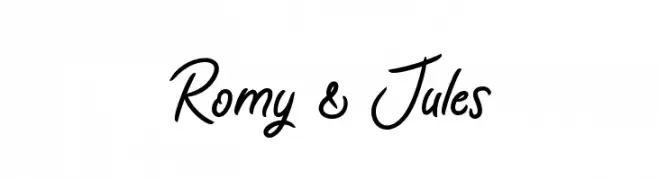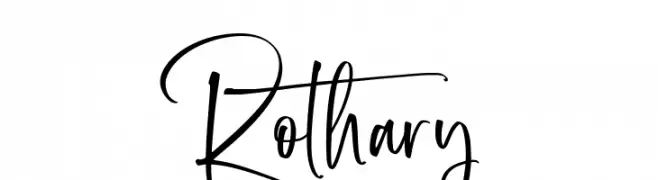
A flowing, elegant handwritten font with artistic curves and loops.
A bold, brush script font with dynamic, fluid strokes and a modern, edgy aesthetic.
A bold, expressive script font with a handwritten style.
A bold, playful script font with a handwritten feel and rounded edges.
A lively, cursive font with elegant, flowing letters and a dynamic style.
A graceful and elegant script font with flowing cursive letters and intricate swashes.
A playful, hand-drawn font with letters in circular shapes, perfect for creative projects.
A modern, flowing cursive font with elegant and smooth letterforms.
A bold, expressive script font with dynamic curves and artistic flair.
A dynamic handwritten font with fluid, expressive letterforms and elegant contrast.